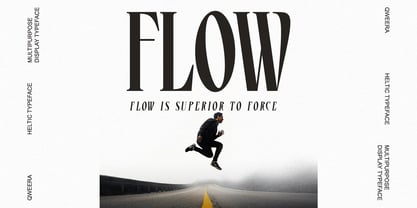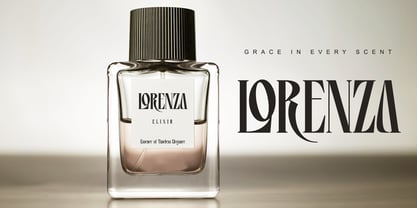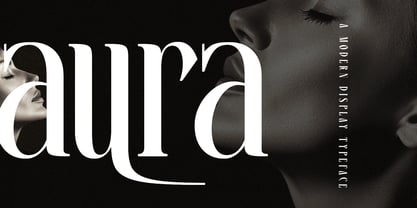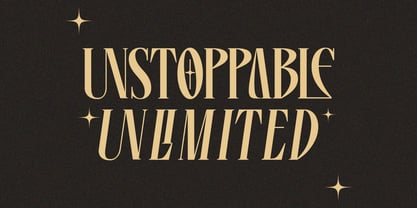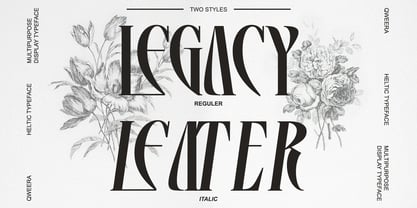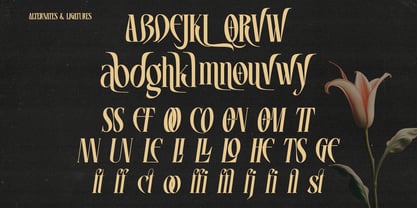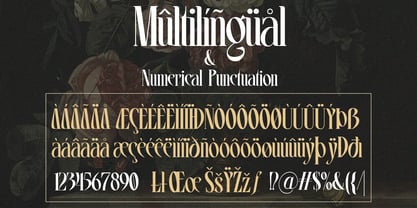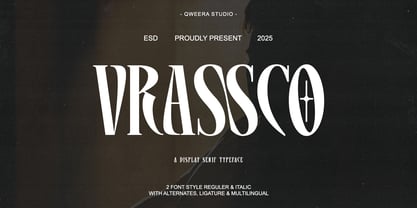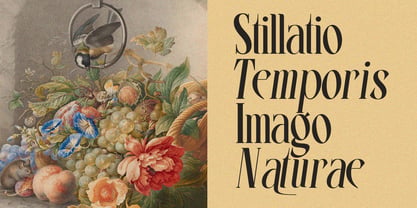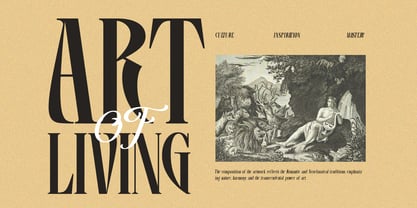
Vrassco
Vrassco – Modern Display Serif Logo Font for Impactful Branding
Vrassco is a commanding display serif font that blends contemporary edge with classic sophistication. Featuring both regular and italic versions with dynamic alternates and ligatures, this typeface is engineered to create striking logos, memorable branding, and eye-catching packaging designs that demand attention.
Where Bold Modernism Meets Timeless Elegance
With its assertive serif structure and refined italic counterpart, Vrassco delivers unmatched versatility for brands seeking both impact and prestige. The carefully crafted alternates and ligatures empower designers to create distinctive wordmarks with perfect typographic harmony.
Premium Features Include:
• High-Impact Serif Display - Bold yet balanced letterforms for maximum visibility
• Dual Style Versions - Regular & italic for brand personality options
• Strategic Alternates - 30+ character variations for unique combinations
• Custom Ligatures - Seamless letter connections for flawless logos
• Universal Application - From luxury packaging to editorial headlines
• Extended Language Support - Comprehensive Latin character coverage
Make Your Mark with Vrassco's Confident Elegance
Ideal for:
• Luxury fashion branding
• Premium product packaging
• Corporate identity systems
• Magazine headline typography
• High-end poster designs